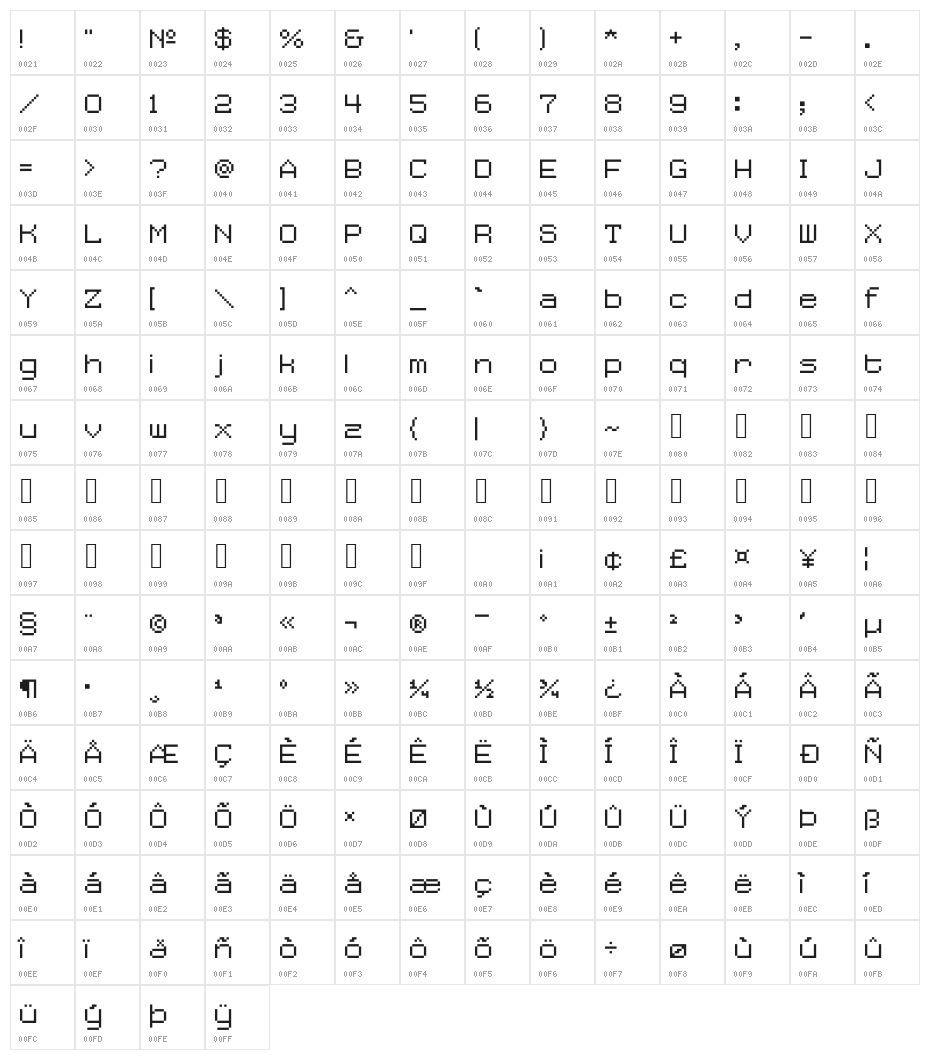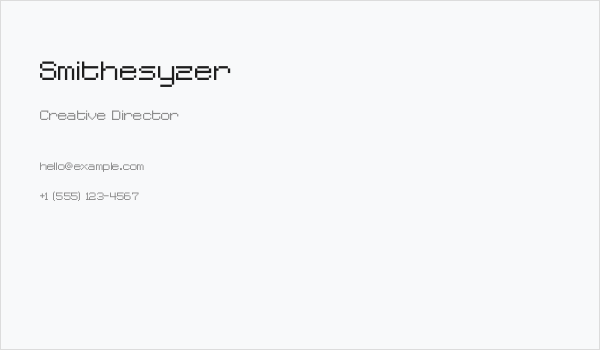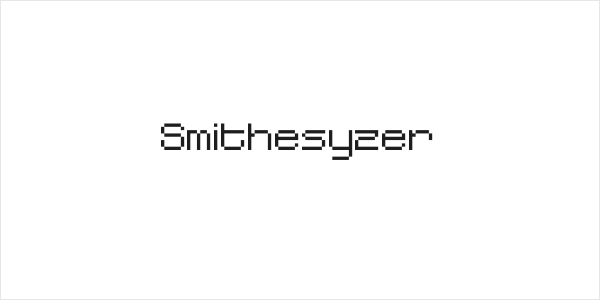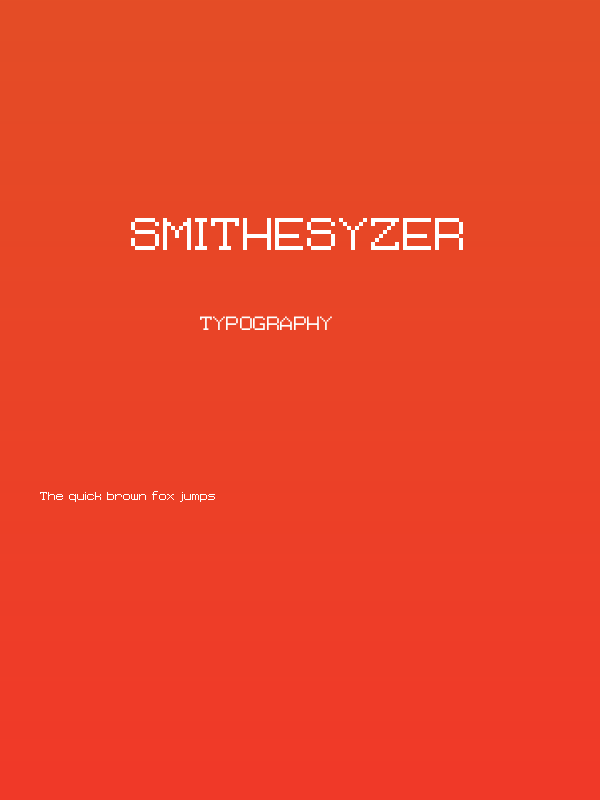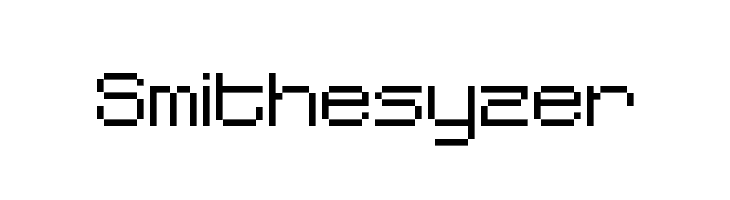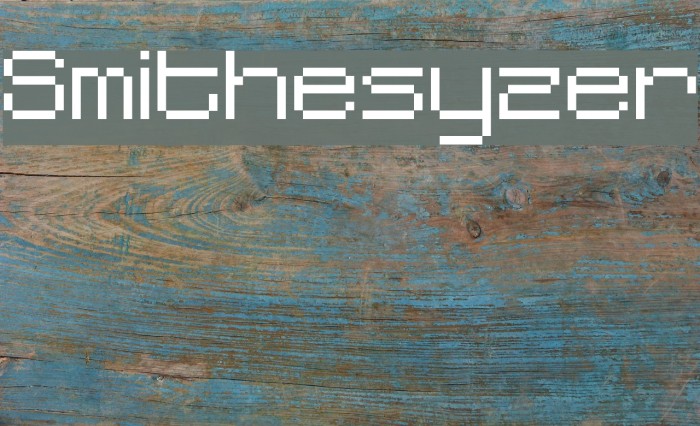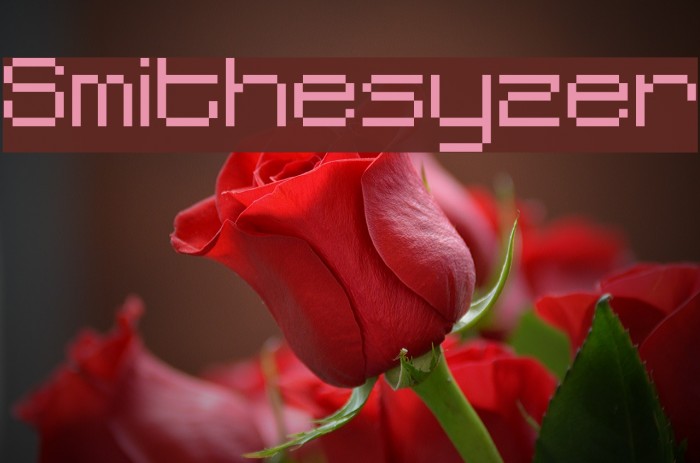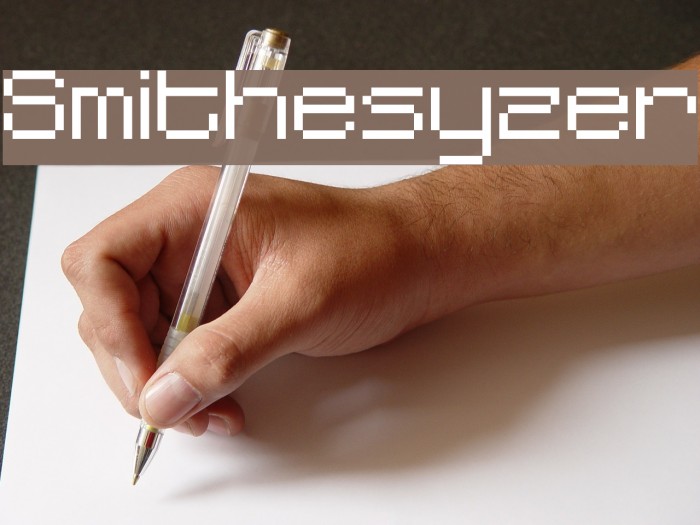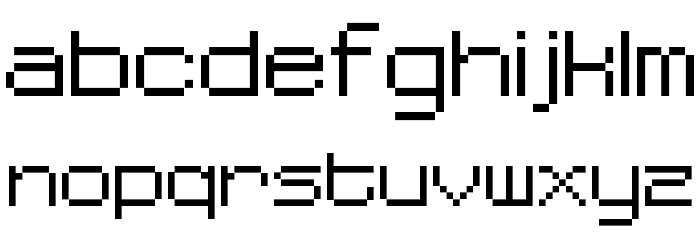
Smithesyzer Font
Smithesyzer Description
This font features a pixelated, grid-like structure reminiscent of early digital displays and video games. Each character is composed of square blocks, giving it a distinctly retro and technological feel. The uniformity in height and width across both uppercase and lowercase letters creates a cohesive and structured appearance. Numbers and special characters maintain this blocky aesthetic, ensuring consistency throughout the typeface. The font's simplicity and clarity make it highly legible, even at smaller sizes, while its unique style adds a playful, nostalgic touch to any design.
| Use Case | Headlines, Logos, Digital Art |
| Proposed Projects | Ideal for retro video game designs, tech-themed posters, digital art projects, and any creative work seeking a nostalgic digital look. |